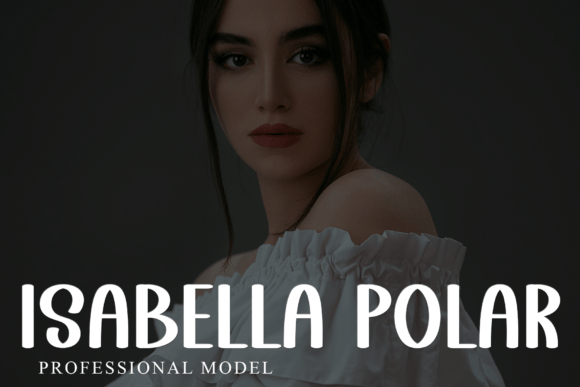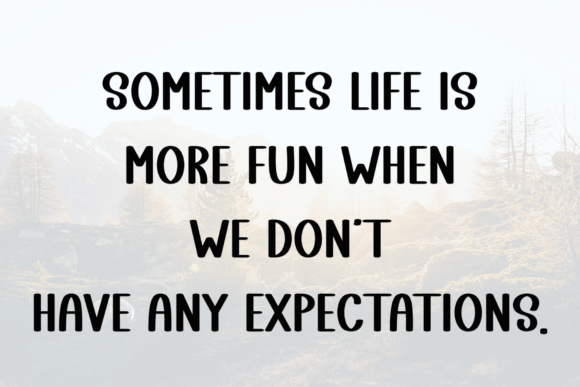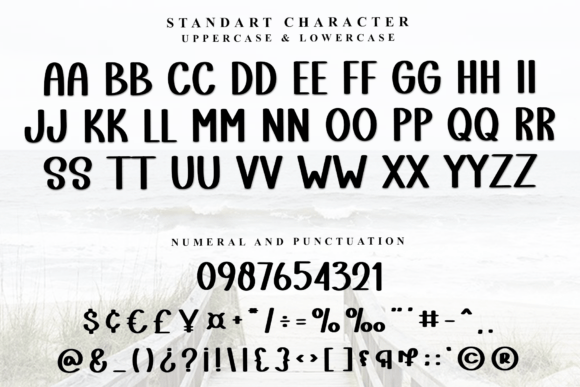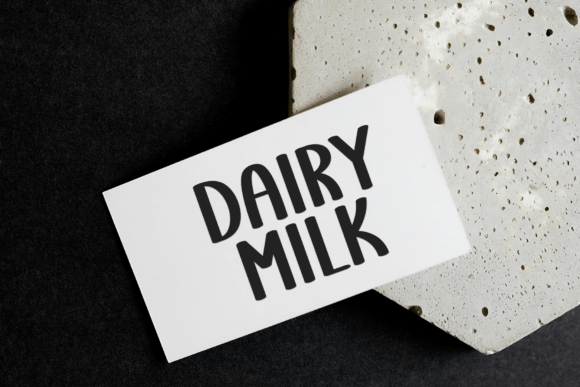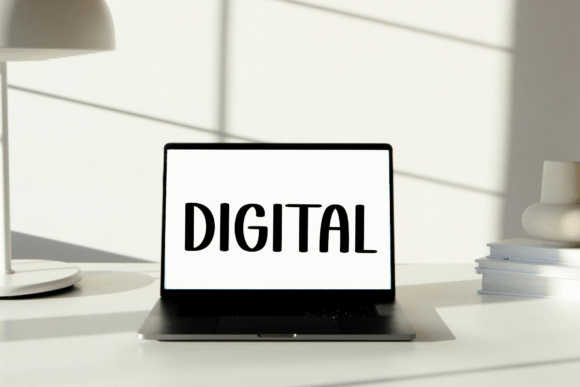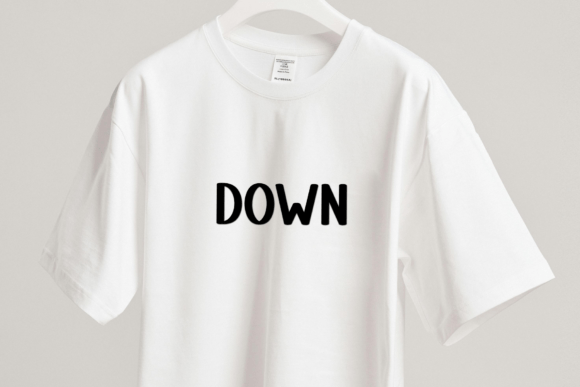
Unleashing Your Creativity with the Boy Scout Font
Do you remember that moment when you stumbled upon the perfect font for your next design project? The one that made everything fall into place, and you couldn’t wait to share it with the world? That’s exactly what I felt when I discovered the Boy Scout Font. Its friendly and approachable vibe immediately caught my attention, and I knew I had to dive deeper.
The Boy Scout Font is a beautiful, handwritten font that’s designed to add a touch of warmth and personality to any design. Whether you’re working on a logo, a poster, or a social media graphic, this font is sure to bring a smile to your face. And the best part? It’s incredibly versatile, making it a valuable addition to any designer’s toolkit.
Boy Scout Font Key Features
- Font Family: Boy Scout is a custom, hand-drawn font designed to resemble the handwritten notes of a Boy Scout handbook.
- Unique Characteristics: The font features a distinctive, hand-drawn style with subtle imperfections and variations in line width, giving it a unique and authentic look.
Boy Scout Font Review
Boy Scout Font is a unique, all-caps sans-serif font that’s perfect for a specific use case – camping and outdoor-themed designs. The font is bold and attention-grabbing, making it ideal for headlines and titles.
The best part about Boy Scout Font is its versatility. It can be used for a wide range of applications, from campfire-themed websites to outdoor gear advertisements. ✨ The font’s bold lines and simple design make it perfect for readability on various devices.
- Perfect for camping and outdoor-themed designs
- Strong and bold lines for readability
- Can be used for various applications, from websites to advertisements
However, Boy Scout Font has some limitations. ⚠️ The font is not ideal for body text due to its lack of letter spacing and awkward line height. It can also be quite overwhelming for users who prefer a more subtle font.
Overall, I’d say Boy Scout Font is a great addition to any designer’s toolbox, especially for projects that require a bold and attention-grabbing font. While it may have some limitations, its unique design and versatility make it a valuable resource for designers.
Use the Boy Scout font for:
- Outdoor and nature-themed designs.
- Retro-style designs.
- Boy Scout or camping-themed projects.
For the most authentic look, use the font in conjunction with a distressed or vintage filter.